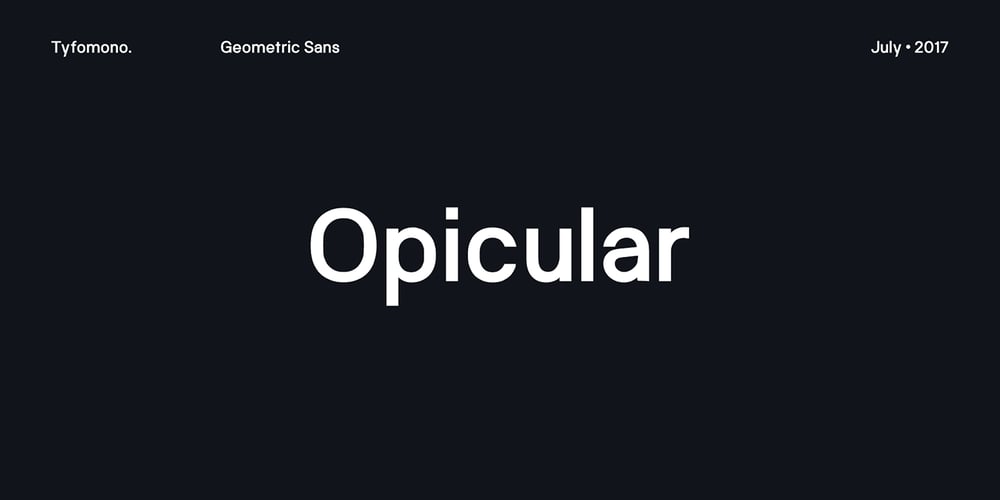
TF Opicular
TF Opicular font
TF Opicular Font Family was designed by Firman Suci Ananda, Fajar Wahyu Pribadi and published by Tyfomono. TF Opicular contains 6 styles and family package options. OPICULAR is a Starter Series of modern sans serif with a geometric typical characters, Inspired by minimalism typography and functionalities, digital or print. Opicular comes in 3 weights and 6 styles from Book to Bold.